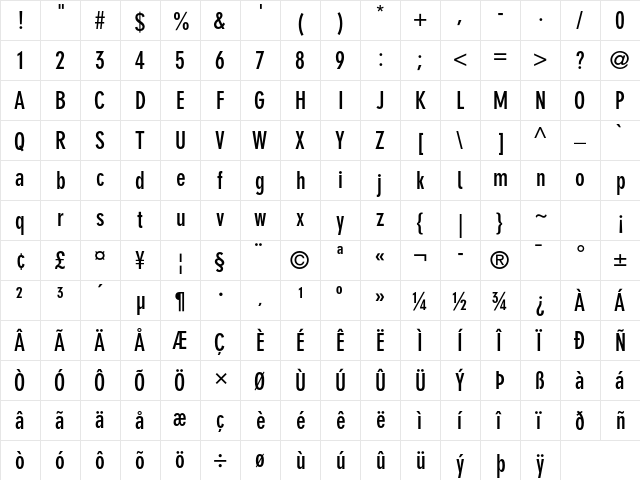
DIN 30640 Std Neuzeit Grotesk Bold Cond
| Style | Neuzeit Grotesk Bold Cond |
| Designer | Linotype Staff |
Design Context for DIN 30640 Std Typeface
DIN 30640 Std has the quiet confidence of well-executed sans-serif typography: versatile, unobtrusive, and dependable at any size. The heavy weight commands attention and anchors typographic hierarchies. Its narrow stance lets it pack a punch even in space-constrained designs.
Well-suited to navigation labels, product packaging, and anywhere legibility at scale is essential.
Font Pairing: Use DIN 30640 Std for headlines alongside a lighter-weight sans or serif for body copy to establish clear visual hierarchy.
Pro Tip: Use DIN 30640 Std tightly set in headlines and banners — its condensed proportions make it ideal for maximum impact in minimum horizontal space.